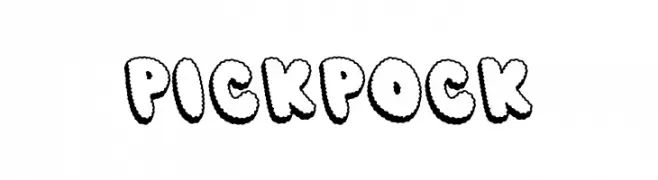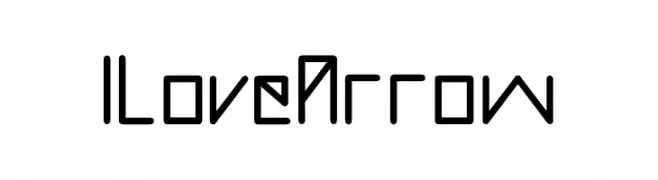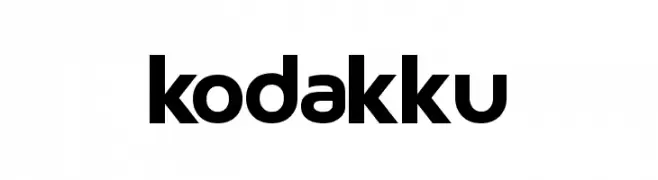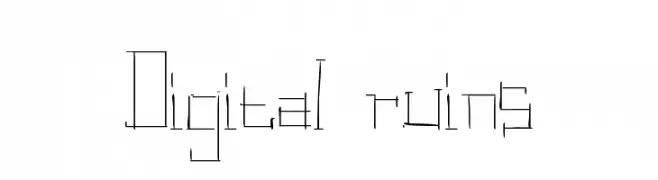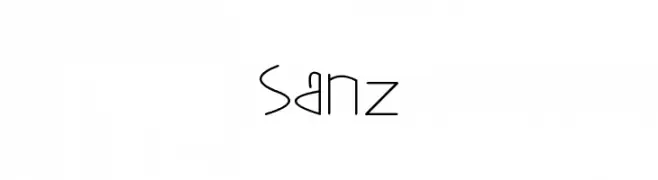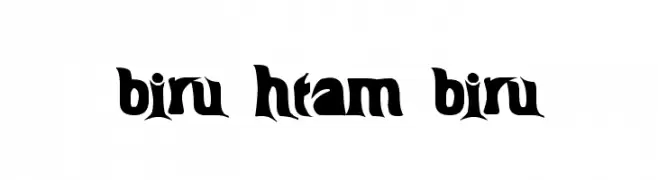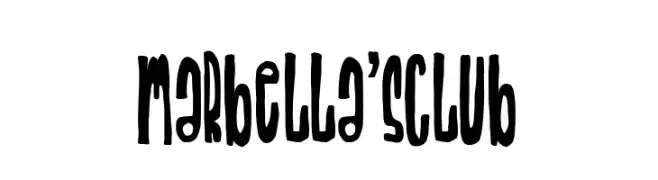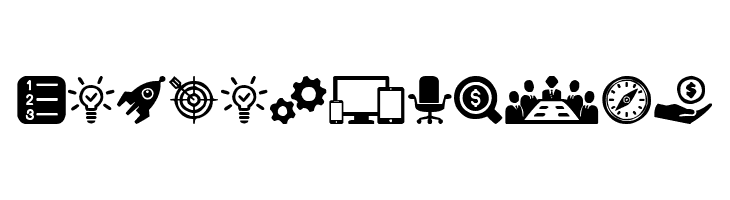
A playful, bold font with scalloped edges and a bubbly appearance.
A modern dot matrix font with a digital, technological aesthetic.
A geometric, modern font with sharp angles and a cohesive design.
A bold, modern geometric font with rounded characters.
A geometric, angular font with a digital and futuristic aesthetic.
A sleek, modern font with clean lines and a minimalist aesthetic.
A bold, dynamic font with sharp edges and a vintage-modern style.
A bold, playful handwritten font with rounded letterforms.
A bold, playful font with elongated, irregular letterforms and a whimsical, artistic style.
A bold, playful handwritten font with a cartoonish style.
What is the new font everyone is using?
Popular choices change fast, but minimalist sans serifs and characterful display fonts are leading right now — especially for mobile-first content and modern branding.
What are five standout new fonts?
Recent favorites include PICK POCK, EduOwl-font Regular, I Love Arrow, kodakku and Digital ruins. They balance clarity and personality, working well for tech brands, editorial layouts, and social visuals.